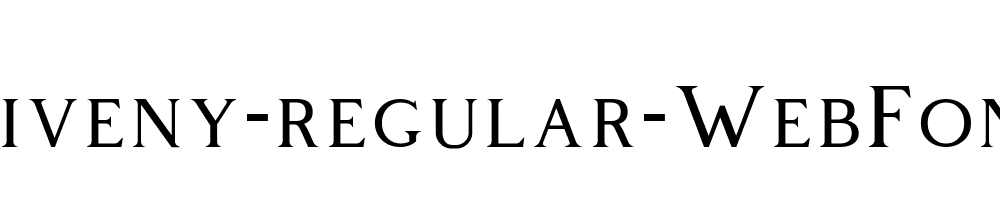
giveny-regular-WebFont
About giveny-regular-WebFont
The giveny-regular-WebFont font designed by an unidentified creator showcases a unique blend of classic and progressive elements that make it stand out among its peers. The font’s clean lines and well-defined structure create an elegant appearance that is both timeless and modern, making it suitable for a variety of design projects. The font’s aperture is well-balanced, with subtle ascenders and descenders that add a touch of sophistication to each character. The ascenders reach for the sky with confidence, while the descenders gracefully hang below the baseline, creating a sense of balance and harmony. The font’s closed counters and tight spacing give it a serious yet friendly look, making it suitable for both formal and informal settings. The curved arcs and smooth crossbars add a touch of warmth to the overall design, making it a versatile choice for any project. The font’s sturdy stems and sharp serifs give it a rugged appearance that exudes confidence and strength, while the delicate hairlines and finials add a touch of elegance and refinement. In conclusion, the giveny-regular-WebFont font is a perfect example of a typeface that seamlessly blends classic and progressive elements to create a truly unique and versatile design option.